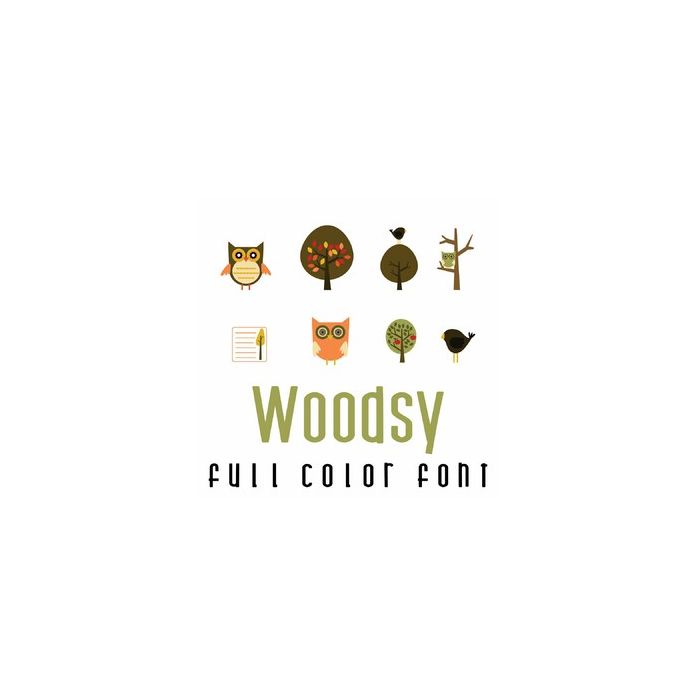
This adorable full-color doodlebat font features 26 fun autumn images of trees, birds and owls. Perfect for cards, crafts, gifts, decor, scrapbook pages, planner stickers, and more!